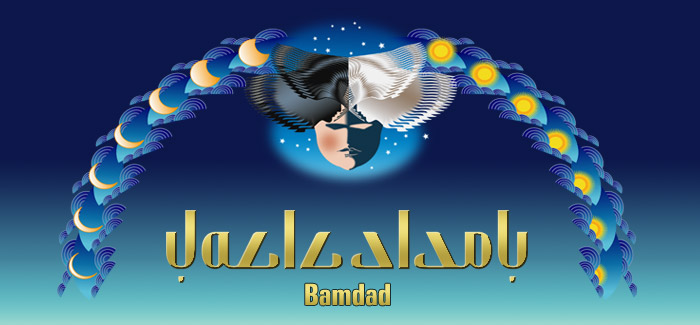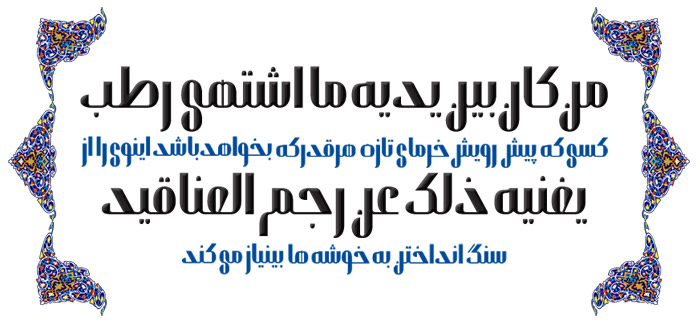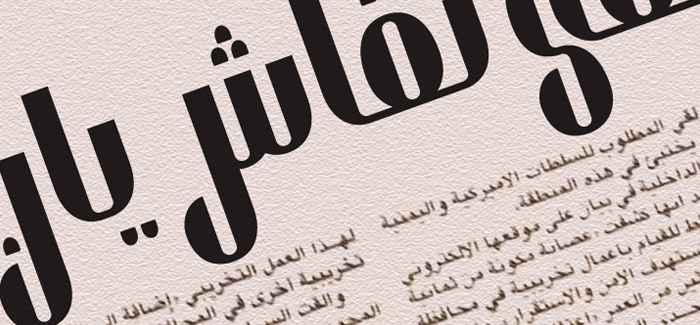
Bamdad Extra Bold Condensed font
Bamdad Extra Bold Condensed font is designed by Naghi Naghashian. This headline font is developed on the basis of specific research and analysis on Arabic characters and definition of their structure. This innovation is a contribution to modernisation of Arabic typography, gives the font design of Arabic letters real typographic arrangement and provides more typographic flexibility. This step was necessary after more than two hundred years of relative stagnation in Arabic font design.
Bamdad supports Arabic, Persian, and Urdu. It also includes proportional and tabular numerals for the supported languages. Bamdad Font is available in Extra Bold Condensed. This font is designed to be used as advertising and newspaper headlines. Bamdad design fulfills the following needs:
A. Explicitly crafted for use in electronic media fulfills the demands of electronic communication. Bamdad is not based on any pre-digital typefaces. It is not a revival. Rather, its forms were created with today’s technology in mind.
B. Suitability for multiple applications. Gives the widest potential acceptability.
C. Extreme legibility not only in small sizes, but also when the type is filtered or skewed, e.g., in Photoshop or Illustrator. Bamdad’s simplified forms may be artificial ‘obliqued’ in InDesign or Illustrator, without any loss in quality for the effected text.
D. An attractive typographic image. Bamdad was developed for multiple languages and writing conventions.
E. The highest degree of geometric clarity and the necessary amount of calligraphic references. This typeface offers a fine balance between calligraphic tradition and the contemporary sans serif aesthetic now common in Latin typography.
Designers: Naghi Naghashian